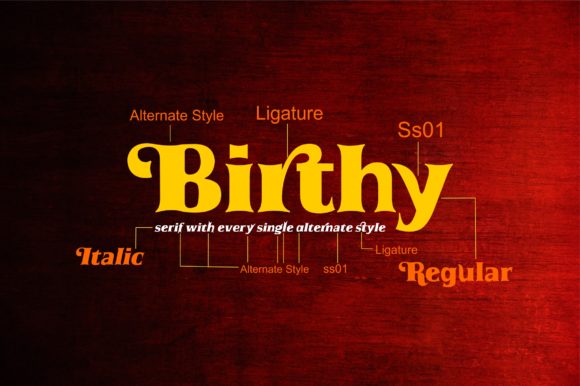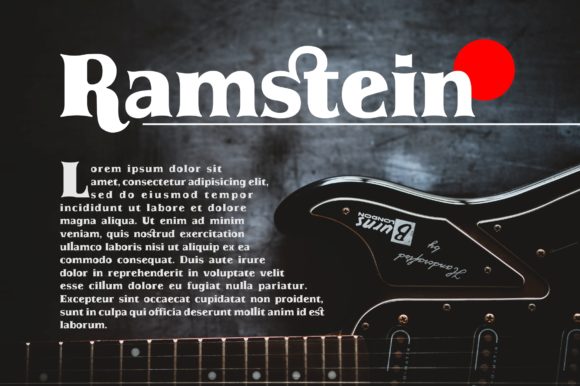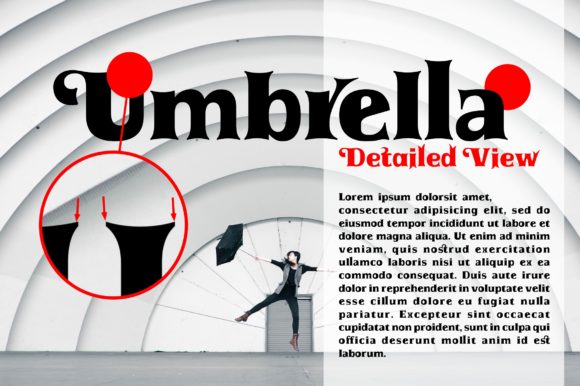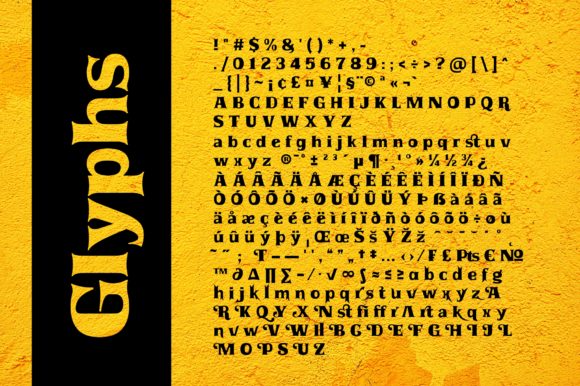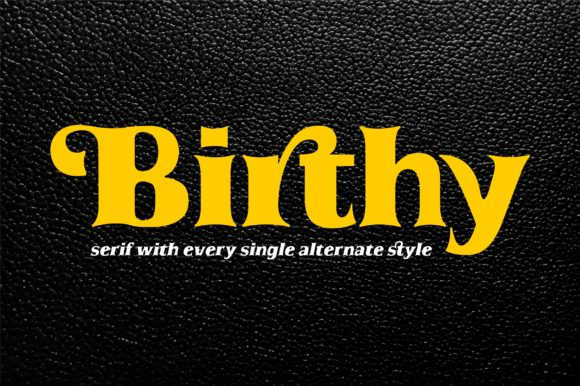
The Birthy Font: A Bold and Versatile Serif for Your Designs
I’ll never forget the time I was working on a project for a client who wanted a bold, eye-catching font to make their brand stand out. I scoured the internet for hours, trying to find the perfect one, but nothing seemed quite right. That was until I stumbled upon the Birthy font. With its unique alternate styles and bold, thick lines, it was exactly what I needed to bring my design to life! In this article, I’ll share my experience with the Birthy font, its features, and how to make the most of it in your designs.
A Closer Look at Birthy Font
Birthy is a serif font that comes with an alternate style for each letter unit, allowing you to choose the shape that you want. It is **bold and thick** and it will most definitely bring each of your designs to life! Here are some of the things I love about Birthy:
- ✨ Unique alternate styles: Each letter has multiple alternate styles to choose from, giving you endless possibilities for customization.
- ✅ Bold and thick lines: The font’s bold lines make it perfect for headlines, titles, and emphasis.
- 🎨 Versatile: Birthy can be used for a wide range of design projects, from posters and flyers to logos and branding.
While I absolutely love the Birthy font, there are a few quirks to be aware of:
- 🤔 Glyphs can be finicky: Some users may find it tricky to access and use the alternate glyphs, especially if they’re not familiar with OpenType features.
- ⚠️ Limited use in body text: Due to its bold and thick lines, Birthy may not be the best choice for body text, especially for longer paragraphs.
The Story Behind Birthy Font
According to its creators, the Birthy font was designed to be a versatile and bold serif font that could be used for a wide range of design projects. The designers wanted to create a font that was both elegant and playful, with a unique twist on traditional serif fonts. After months of work and refinement, the Birthy font was born.
| Is Birthy font suitable for body text? | While Birthy font can be used for body text, its bold and thick lines make it more suitable for headlines and emphasis. |